How to combine fonts + 12 great font combos
Pairing fonts is a staple in digital design. Think about it -- we rarely see a design with only one font. It’s for a good reason, too. The simple answer is that it’s monotonous. Users respond to variety, and their attention is easy to lose.
That’s why the greatest designers love to mix and match fonts: Varied fonts elevate the design and keep the attention of the user.
They also make the design neater and more organised. This is also incredibly important.
Organisation is key in any kind of design; in digital design, doubly so. Keeping your design neat is one of the top priorities. Using different fonts can help you keep track of your ideas.
Different fonts also help you spot mistakes. It’s common advice when writing anything -- change your font to spot typos.
So, using different fonts is generally a good idea. But, most people know that, even if it’s only on a subconscious level.
A better question is how to combine different fonts. In this article we’ll take a look at a few pointers. We will also analyse some of the best font combos.
There are a lot of great options, and it’s impossible to list them all in one place.
Combining fonts is a creative process. There are infinite possibilities; finding one can be overwhelming.
Here are a few basic guidelines to make this process easier:
- Use a single font family: Font families are groups of fonts that have a similar design. They vary in style, weight and slant, but they have similar appearance. This is a good idea for novice designers. It has a limited range, so it’s easier to navigate. A single font family is great for minimalist designs. It gives the design sleekness and polish it needs.
- Use contrasting fonts: Contrasting fonts are different fonts that complement each other. They are like two sides of a coin. It’s a good idea to combine serif and sans serif fonts. Mix up weights. Play with the slants. Combine loud with quiet fonts. But, be sure that fonts enhance each other. Take care that they don’t clash. If you can, ask a second opinion. A fresh pair of eyes can be a godsend.
- Limit the number of fonts: It’s easy to go combo-crazy. There are a million amazing fonts and you might want to use as many as you can. That’s understandable, it really is. But, you should always aim for coherency. Gather a bunch of fonts you like the most and try to find different styles and weights. Then eliminate them one by one. Compare how they go with each other. This beauty pageant approach can save you a lot of overthinking. In the end you’ll be left with fonts you like the most.
Now, for those font pairings (free and paid):
1) Garamond and Helvetica Neue
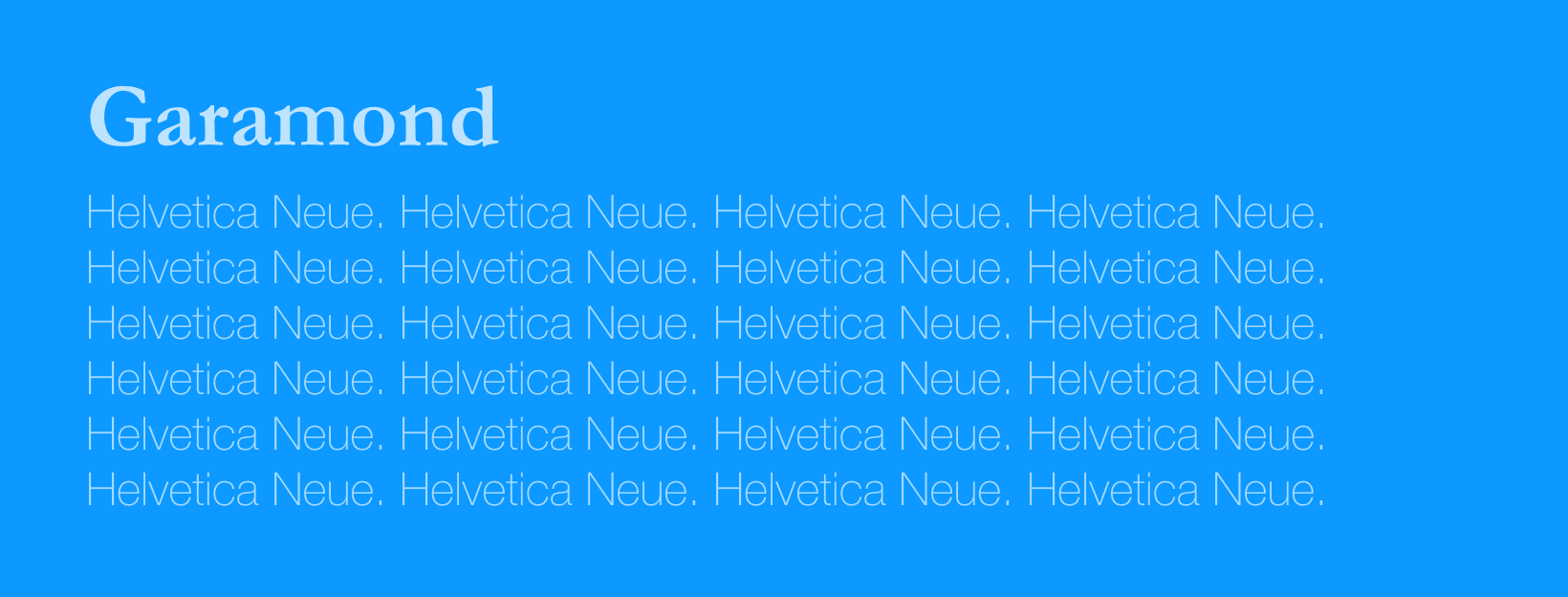
This is a classic example. Garamond is a traditional serif font that lends a bit of gravitas to a design. It’s elegant and sophisticated.
Helvetica Neue is a sans-serif, suitable for longer texts. Its minimal and unobtrusive design is easy to read.
This combination is a good example of contrasting fonts. They complement each other and create a coherent unit.
It’s a safe duo that will fit a great variety of projects.
2) Fontin and Fontin Sans
As one might guess, these fonts are part of the same superfamily. The Dutch foundry exljbris developed this font family.
Fontin is an elegant modern serif.It has a distinctive look and will make a design pop.
Its sans-serif counterpart is another great typeface font. It’s almost a semi-serif. But they work together beautifully.
This combo is a great example why working with one font family pays off. Best of all? You can get them for free.
3) Museo and Calluna Sans
This sleek, modern combination works amazing with all sorts of projects. Both fonts have a rounded appearance.
Museo is a lovely serif font from the exljbris Font Foundry. It has groovy semi-slab serifs and rounded bowls. It doesn’t need to be edy (pun intended) -- it’s effortlessly cool.
Calluna also has rounded bowls, but they lean towards oval. It has just a pinch of elongation to make the design flow better.
Together, these playful designs create stunning visuals.
4) Begum Bold and Futura PT Book
Begum is an absolutely fabulous font family. It’s a favourite among designers across the board. Its appeal is obvious from the first sight.
Its sharp serifs give it a great edge and make it stand out from other fonts.
The bold weight is the perfect choice for an eye-catching title. It’s a flawless mix of power and elegance.
Futura PT Book is a versatile sans-serif font. It appears on many best sans-serif font lists for a reason. It’s sleek and perfect for digital design.
Together, these fonts create a beautiful visual experience for the user. The title wows them and the text calms them.
Check out the Begum font family. You can download the Futura PT family here.
5) Rockwell Bold and Bembo
This is another beautiful heavy-light combination.
Rockwell Bold is one of the most popular slab serif fonts out there. It’s a loud font, but not too flamboyant.
Rockwell Bold is a relatively old font, as it came out in 1934. But, its timeless look has been a favourite for a reason.
It gives your design a pop and makes it look vibrant.
On the other hand, Bembo is a subtle elegant font. It is easy to read, and as such it’s a great choice for the text body.
Bembo complements Rockwell with its simplicity. This pairing is one of the best complementary font combinations. It’s exactly what a good combination should be.
You can pick up Rockwell Bold font here, and the Bembo font family here.
The Letterpress Script is a lovely vintage-looking font. It might be a bit too ornate to use in body text.
However, it’s beautiful for titles and headlines.
Brandon Grotesque is an almost utilitarian sans serif font family. It’s no frills, but still accessible. Its rounded bowls soften its edge just enough to go with the Letterpress Script font.
It has different weights and styles. Overall, the light weight might be best to pair with Letterpress Script.
Together they make an extremely interesting pair. They might not be the best choice for longer projects like books. But it can be amazing for sites, event invitations and product designs.
You can get the Letterpress font family here and Brandon Grotesque here.
7) Patua One and Lora
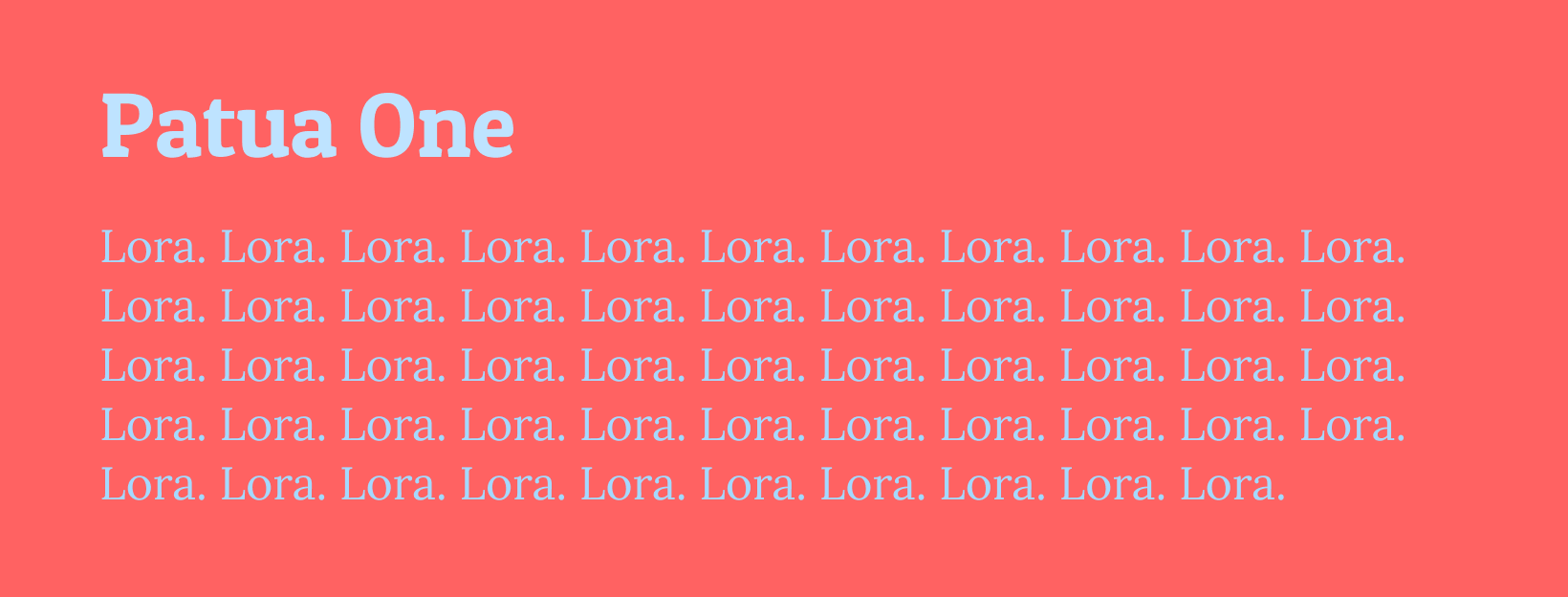
Patua One is a very interesting font. It’s a somewhat heavy font, but you can use it for smaller designs. This means it’s perfect for projects like mobile apps.
Patua One is a serif font, and its serifs have slight curves. This means it’s a rounded, smooth font.
In contrast to it, the Lora font is thin and quite a bit pointer. It’s also a serif font, so the two can work quite nicely. The serifs of the Lora font are sharp and go well with the thick stems of the letters.
Together they create a lovely balance. They manage to achieve that contrasting quality without being a serif and a sans serif font.
Patua One is free for download and use - get it here. You can download the Lora font from Adobe right here.
8) Roslindale and Avenir
Roslindale is a beautiful typeface serif font. Its designer, David Jonathan, Ross drew inspiration from the De Vinne font from the late 19th century.
As such, Roslindale is classic and timeless. It has thick stems and triangular serifs. Even though this might sound a bit heavy, it’s incredibly elegant. Its elongated bowls have a beautiful, graceful shape.
It’s a lovely and eye-catching font. As such, it works best for titles and headlines. Roslindale makes a statement without being too loud.
That’s why you should pair it with an understated font like Avenir. It’s a sans-serif, simple and practical. In this combination the Roslindale is the star.
Avenir is a geometric sans, and it has similarity to Futura (along with a cheeky nod in its name). But it’s a bit softer. It isn’t as rigid as other geometric sans fonts.
You can get the Roslindale font here and the Avenir family here.
9) Oswald Bold and Montserrat Light
This is a sans-sans combination. The trouble with combinations like that is that they might seem utilitarian. But, if you do it right they can be quite playful and fun.
Oswald is a heavy sans-serif font. It’s almost like a newspaper headline font.
If you’re a comic book nerd, it might evoke a Gotham City newspaper. Though that might just be me.
Still, it’s a great sans-serif font for a wide variety of projects. When you pair it with a dainty font such as Montserrat Light you get something really special.
Montserrat is one of the most popular sans fonts. It’s easy to see why. It’s graceful and rounded, perfect for a touch of class.
You can get the Oswald font family and Montserrat.
10) Bubblegum Sans and Nunito
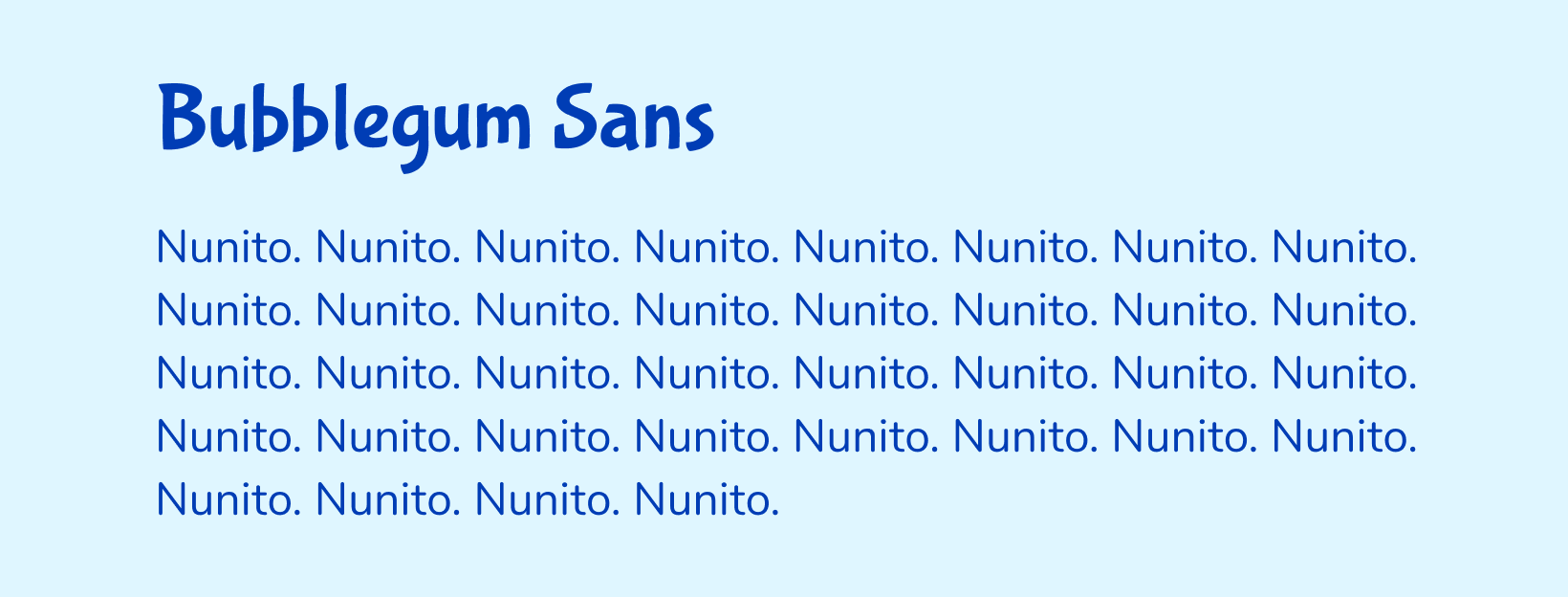
Bubblegum Sans is one of those really in-your-face fonts. It’s thick, round, and playful as a puppy.
It has an almost script quality. And yes, script fonts are notoriously tricky to combine.
Moderation is key with the Bubblegum font. In small amounts it gives your design a pop of fun. But you can easily have too much of a good thing with it.
That’s why you have a more serious font like Nunito. It reigns the Bubblegum in and keeps it grounded.
That being said, it’s also a bit rounded so it doesn’t clash with Bubblegum.
Together they can create an awesome balance of pizzaz and elegance. It might not work for more serious projects like pitch decks. But, it can make other designs really pop.
You can find the Bubblegum Sans font here and Nunito here.
11) Traulha Jornau and Nimbus Sans
Traulha Jornau is an elegant serif font. It has long serifs that make the design even more graceful.
It’s a sharp font and it can really elevate a design.
The designer Yoann Minet created a font family featuring both serif and sans fonts.
You can combine the fonts in the same family. They are a tried and true combo. It’s a great idea especially if you’re new to the field of design.
That being said, it’s also a bit rounded so it doesn’t clash with Bubblegum.But here we’ll take a different approach. Nimbus Sans is a sans-serif typeface. It has some similarity with Helvetica, but with a big number of different cuts.
You can find the entire Traulha font family here and get the Nimbus Sans here.
12) Egizio URW Bold and Perpetua
Egizio URW is a font family by the URW foundry. It is a serif typeface font. Its serifs are quite big and triangular.
It is a classic font and it works best for business designs such as pitches, reports and the like.
Perpetua is another elegant serif font. It was first released in 1929. and has enjoyed popularity ever since.
It’s a bit lighter than the Egizio. It’s pleasant for the eyes. It is a great option as a main text font. It makes sense, since designers used it as a bookface for a long time.
Find the Egzio URW font family on Adobe. You can download the Perpetua font family here.
Anyway, we hope that this has been helpful in your next project. Whether you're looking for font combinations for inspiration or you need to get to work right away, there's something in here for just about any type of project. Whether you’re needing something modern, classic, or in-between -- there’s a little bit of everything in this roundup. Now you can start creating your own perfect design, with the help of some of these free and premium fonts.